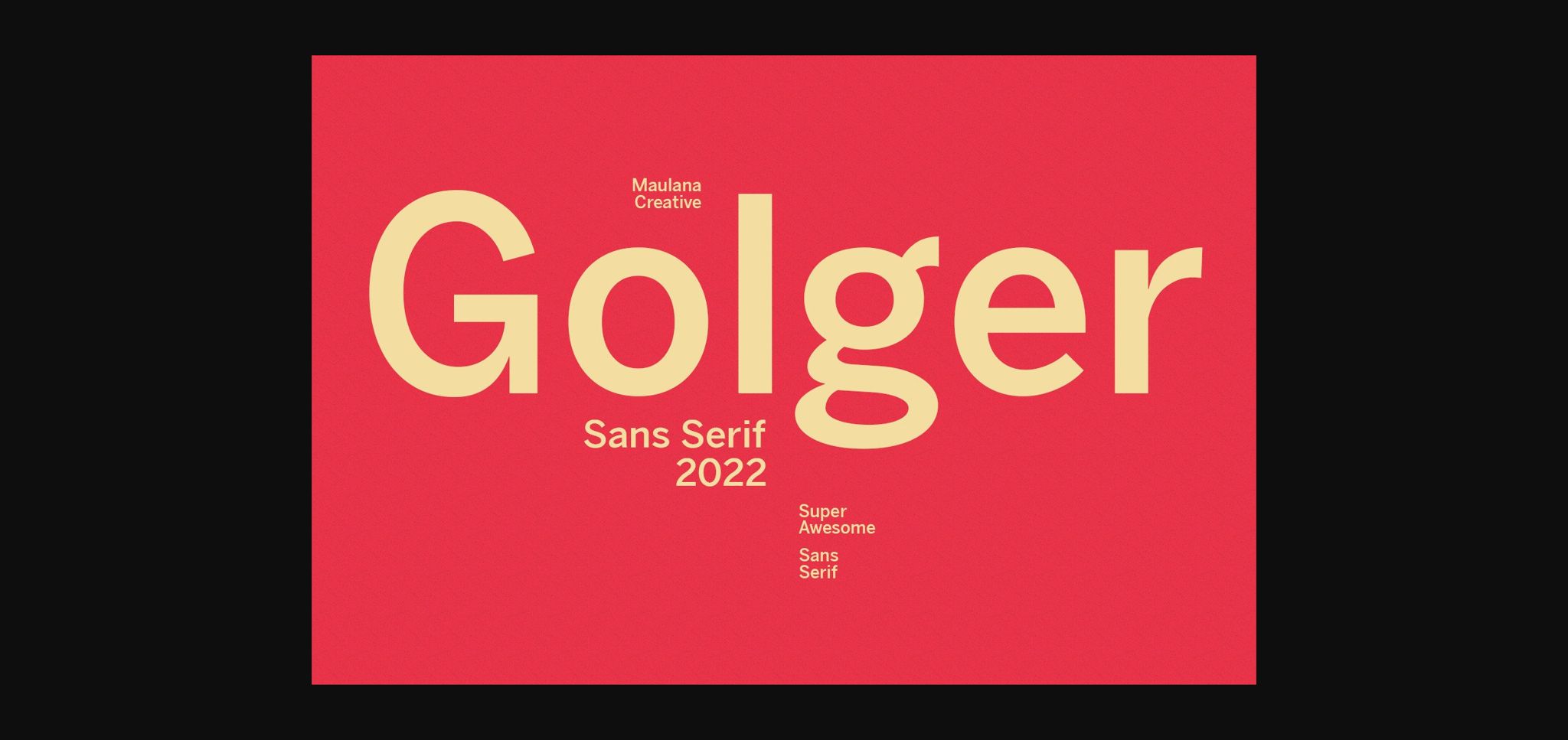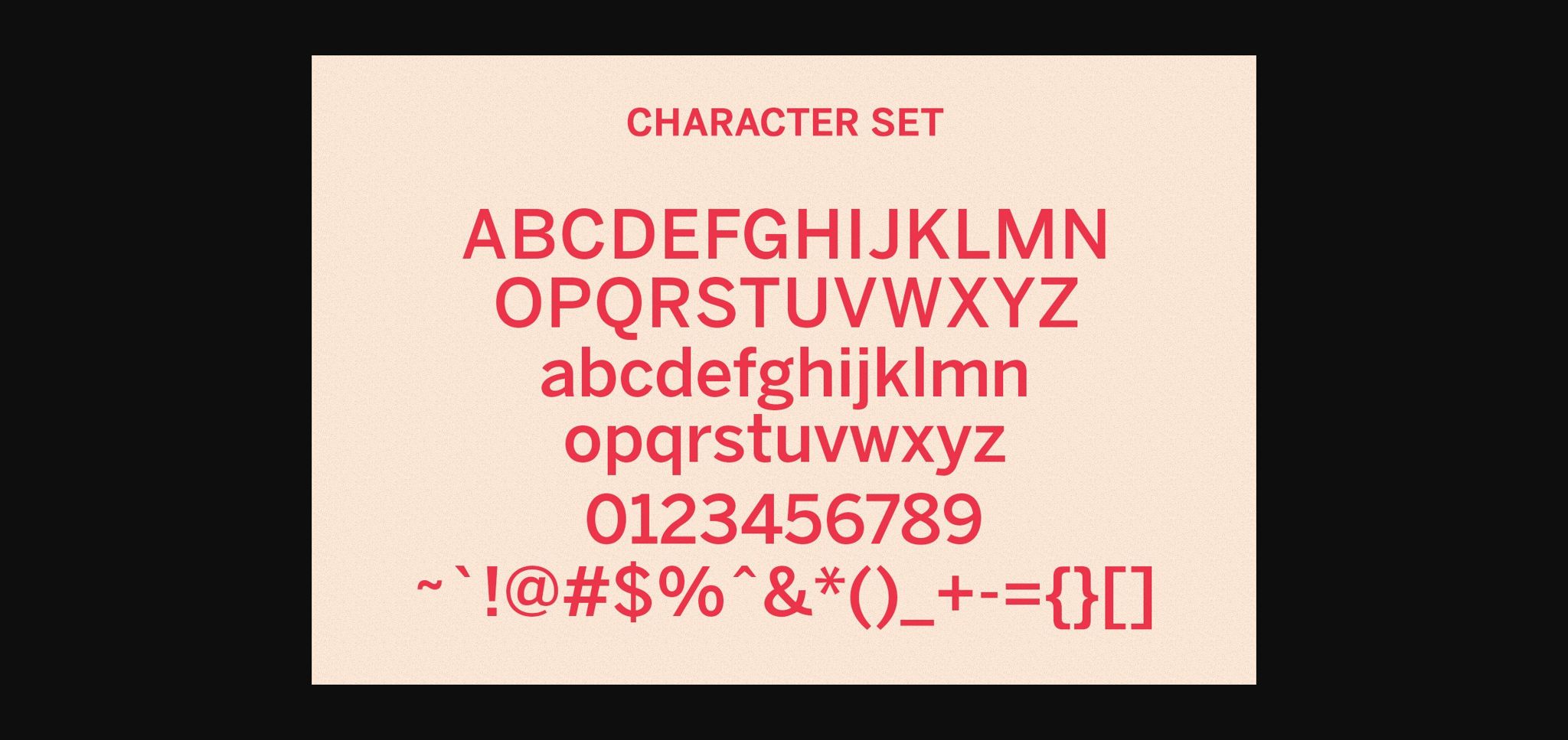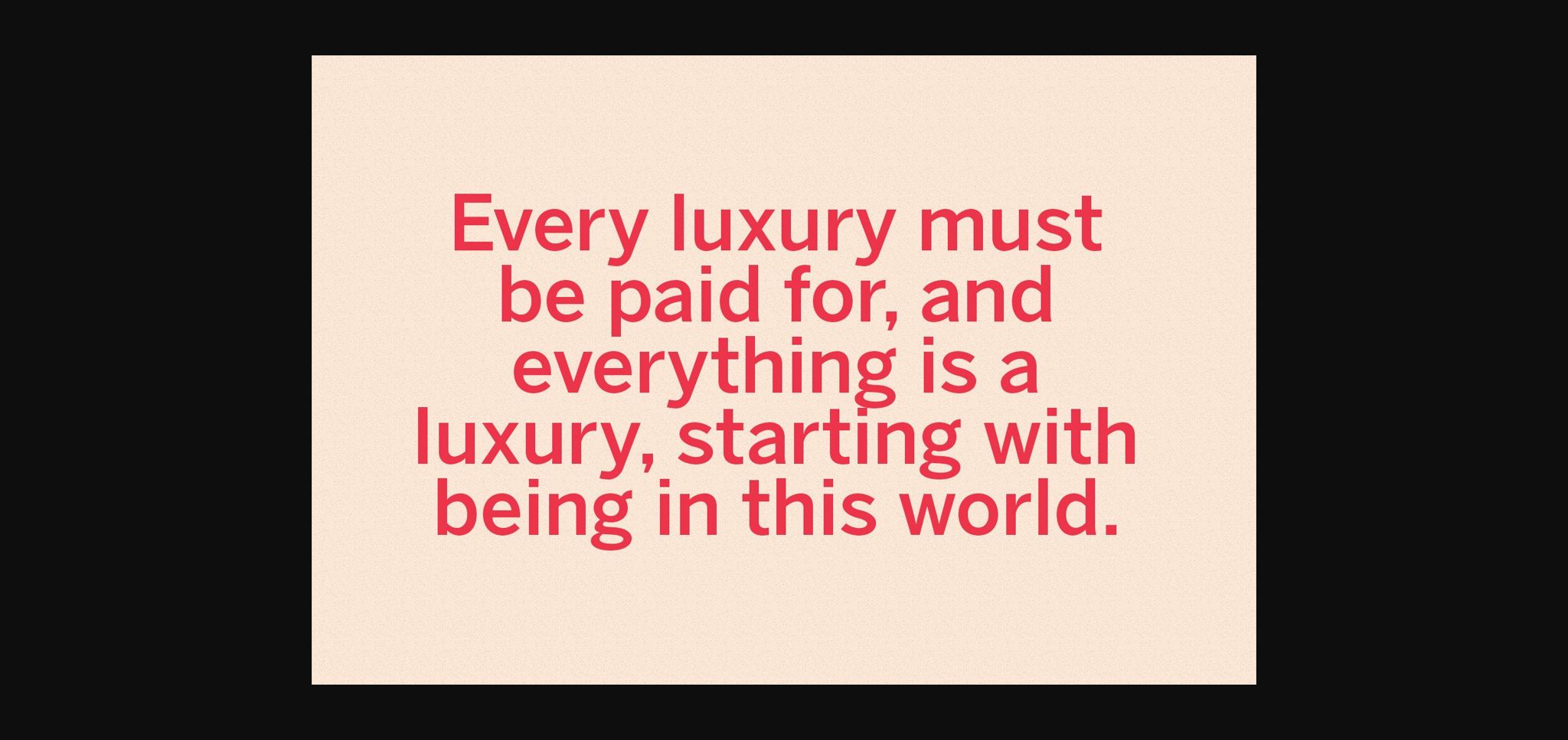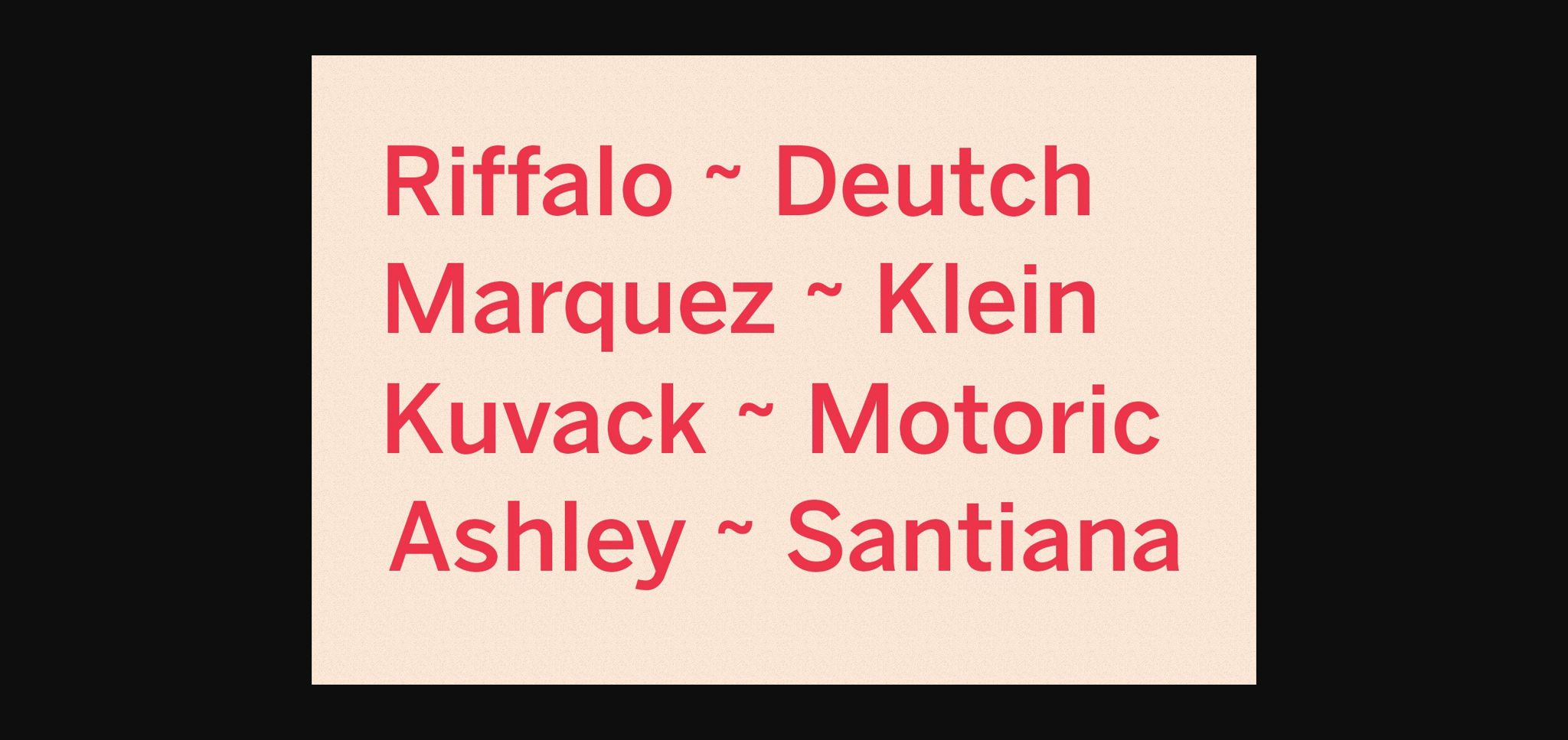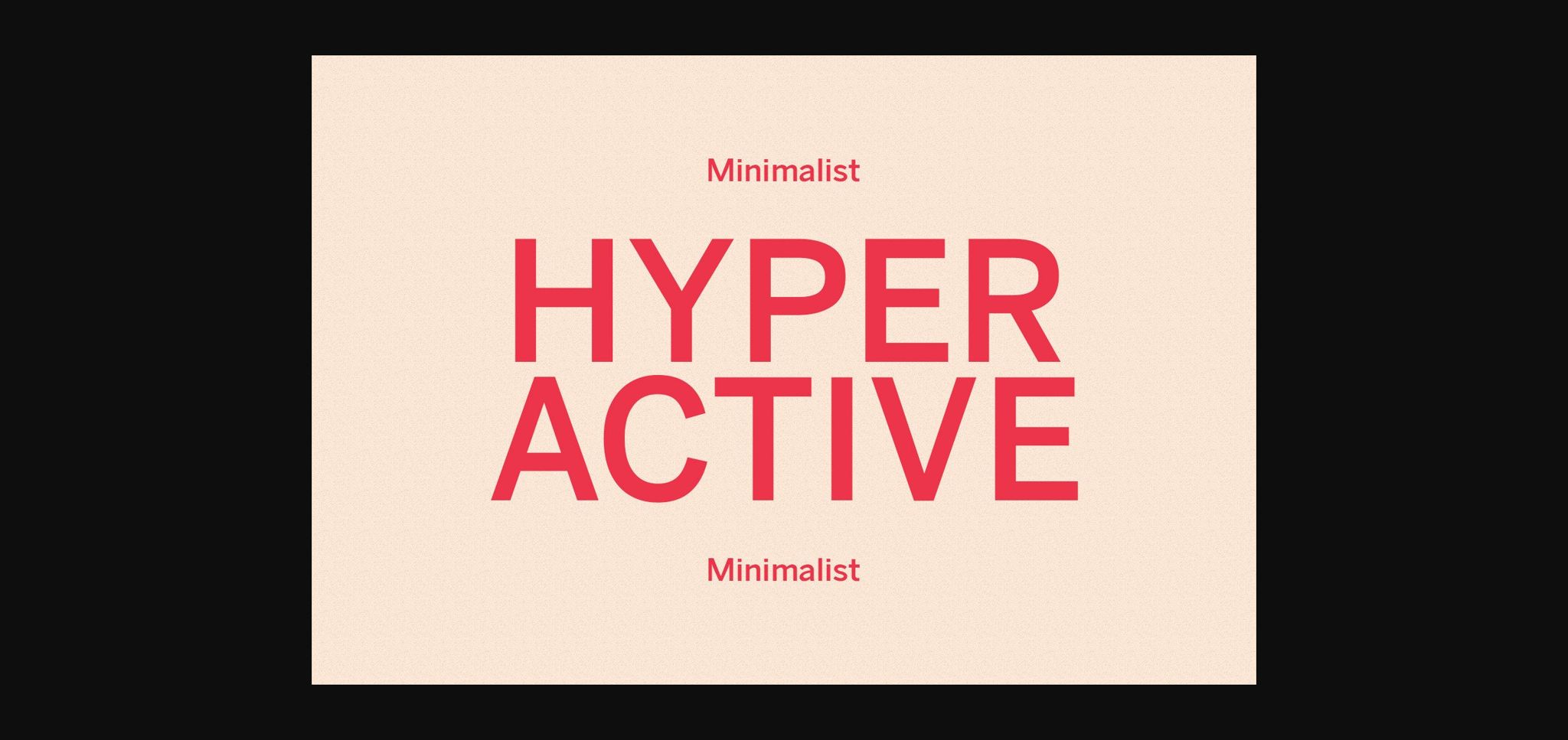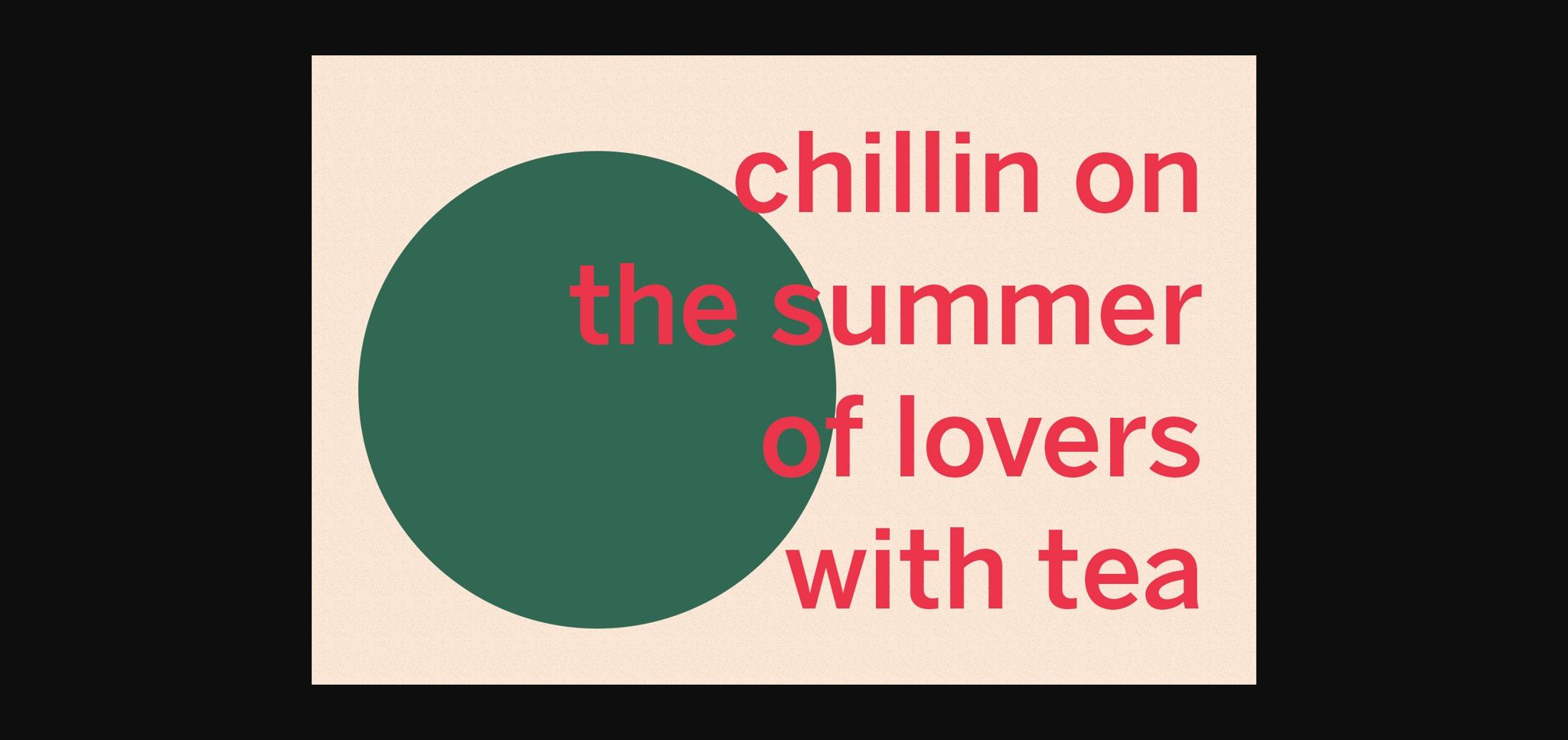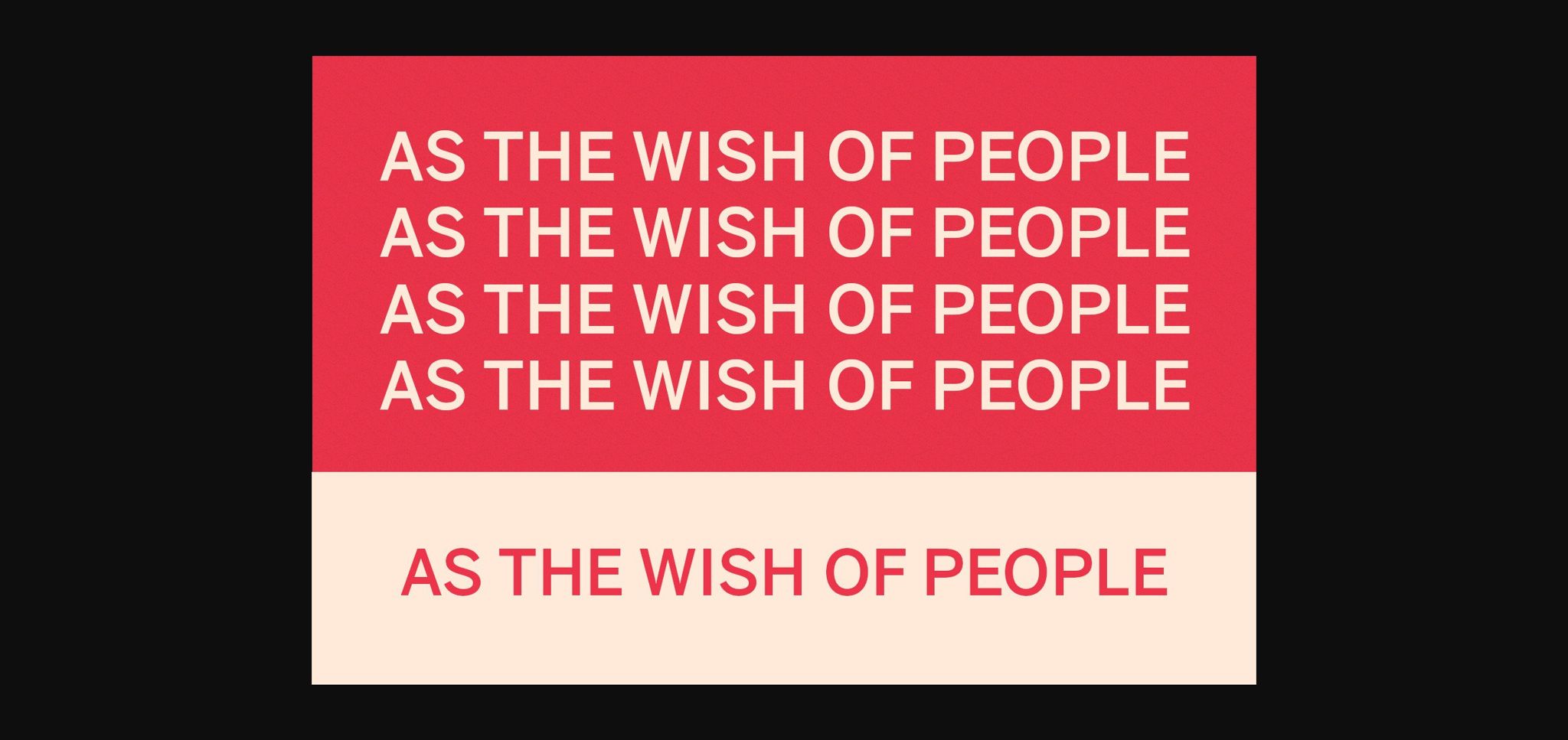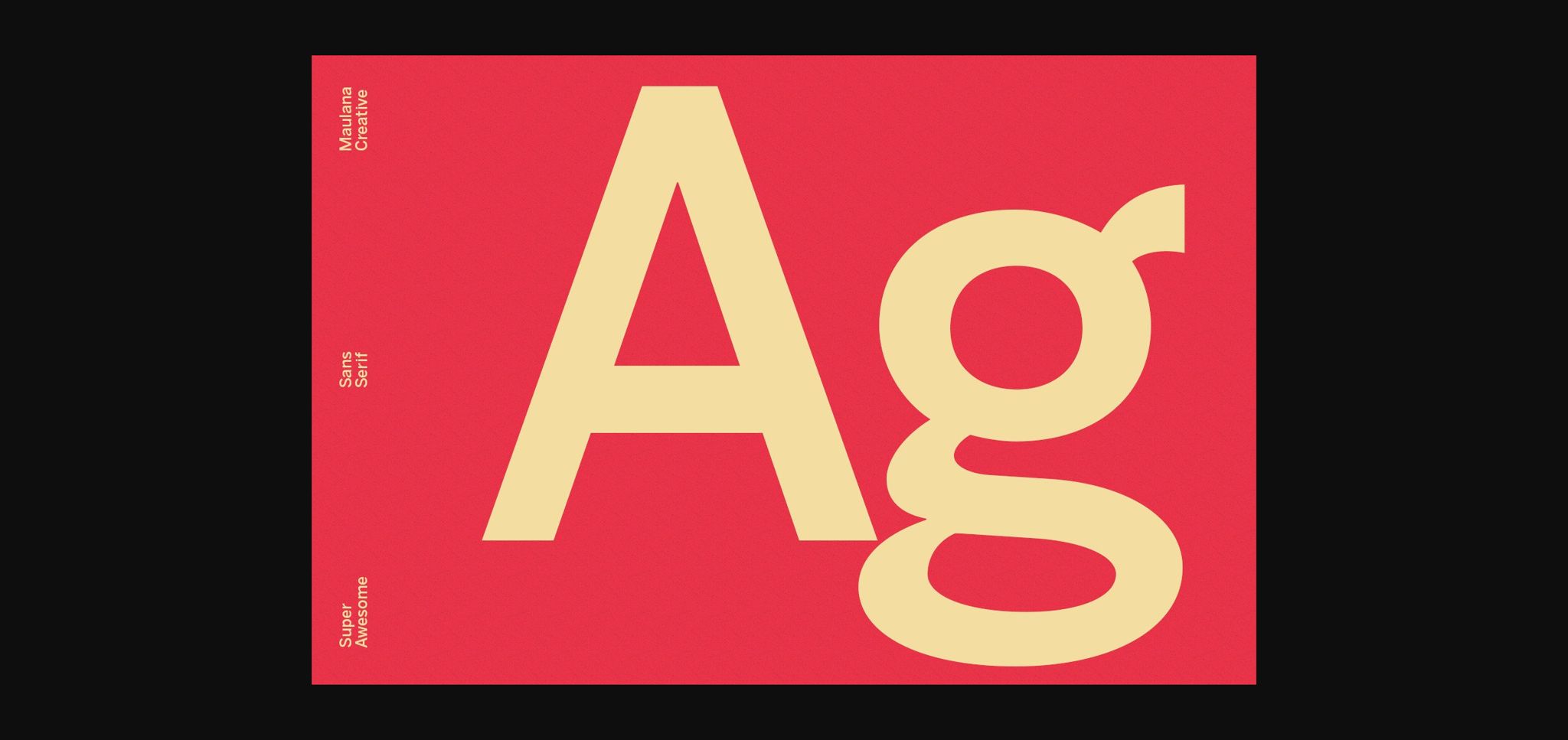
HomeSans Serif FontsGolger Font Sans Serif Fonts Golger Font FacebookXPinterestWhatsApp 1 of 10 ... Golger Font Poster 2... Golger Font Poster 3... Golger Font Poster 4... Golger Font Poster 5... Golger Font Poster 6... Golger Font Poster 7... Golger Font Poster 8... Golger Font Poster 9... Golger Font Poster 10... About Golger Font Golger is a classic sans serif font with a modern twist. Incredibly versatile, this typeface will look great in a wide variety of contexts. DOWNLOAD NOW People also explored Family in Winter Font Barbie Lover Font Quillajas Script Font Agrinio Font Monograph Font Fubrica Font Shearshank Font Fairytales Script Font Hey Beauty Font 308 0 TagsGolgerGolger Font Previous articleCoopy FontNext articleDestrod Font LEAVE A REPLY Cancel reply Comment: Please enter your comment! Name:* Please enter your name here Email:* You have entered an incorrect email address! Please enter your email address here Website: Save my name, email, and website in this browser for the next time I comment. Personal Use Free BD Medled Personal Use Free Read more about this font Krabuler Personal Use Free Read more about this font Cranberry Gin Personal Use Free Read more about this font Arc Personal Use Free Read more about this font BLOG Elegant Wedding Invitation Fonts – Handwritten & Script Fonts Elegant Wedding Invitation Fonts Your wedding day is one of the most important moments of your life, and every detail matters—including your invitation design. Our... Where to Buy American Fonts Online in 2024 How to Install and Use Fonts on Windows, macOS, and Web Projects Exploring Font Trends